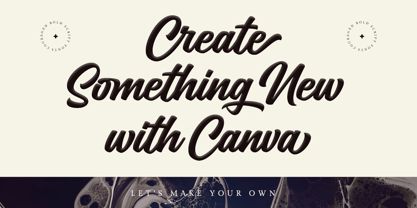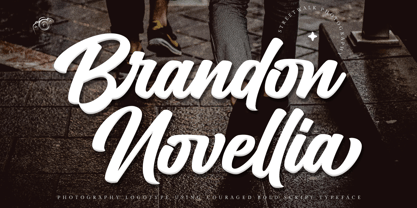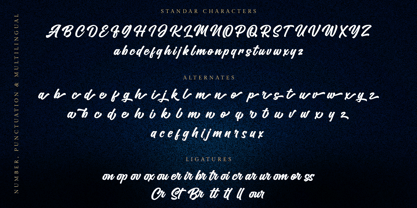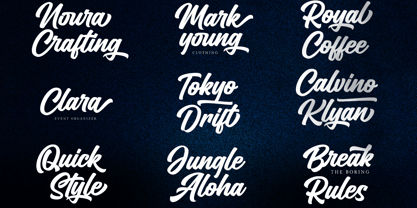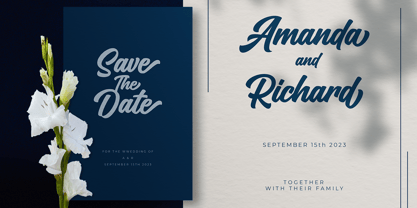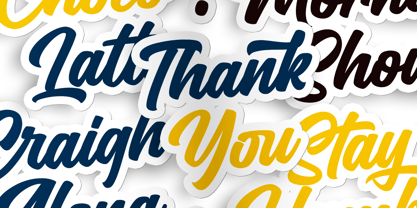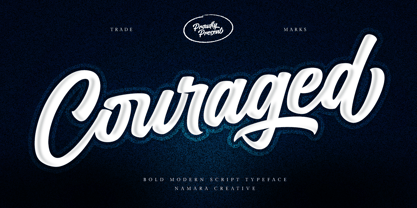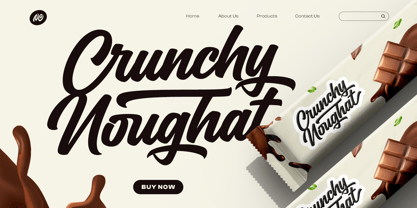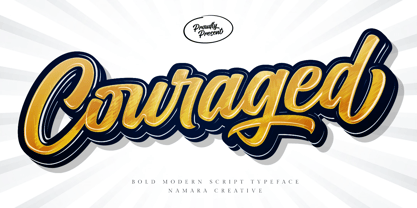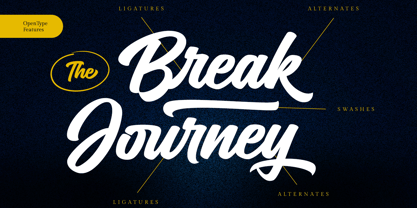
Couraged Script
by Namara Creative Studio
The Couraged Script Font Family was designed by Eep Apringga and published by Namara Creative Studio. Couraged Script contains 1 styles. More about this family
Couraged Script is bold modern script typeface inspired by natural hand lettering style. Perfect for designing logotype, branding, promotional ads, quotes design, packaging, t-shirt design, poster, merchandise, social media and much more. Couraged comes with standard characters, numerals, punctuations and also included alternates, ligatures and swashes. Which let you customize your designs with so many alternative choices based in your creativity.
Features :
• Full Set of standard characters and punctuations.
• Alternates, ligatures, swashes and multilingual support characters.
Designers: Eep Apringga
Current Foundry: Namara Creative Studio